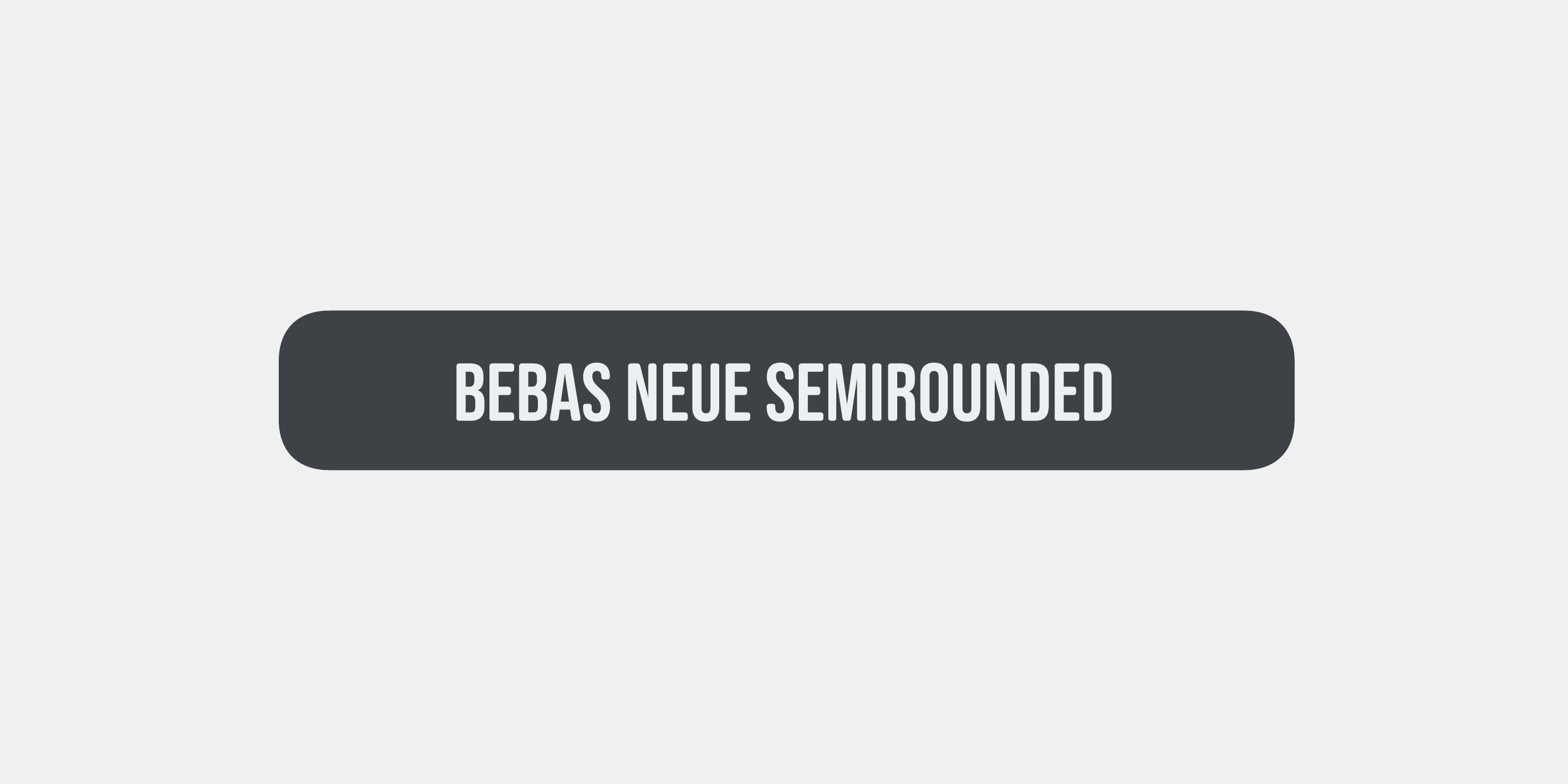
Bebas Neue Semi Rounded Font is perfect for various applications including modern brand logos, contemporary web headers, stylish product packaging, trendy social media graphics, sleek mobile app interfaces, dynamic poster designs, fashion brand identities, minimalist signage, creative agency branding, and progressive marketing campaigns.
What makes Bebas Neue Semi Rounded Font so exciting is its perfect evolution of the classic Bebas design with softened edges that create approachable boldness without sacrificing visual impact. This contemporary typeface features strong, condensed letterforms with gentle rounded corners and refined proportions that bridge the gap between aggressive display fonts and friendly, accessible design. The font's balanced character and modern aesthetic make it ideal for brands that want to convey confidence, innovation, and approachability to audiences who appreciate contemporary design with a human touch.
Bebas Neue Semi Rounded Font family includes multiple weights and styles: Thin, Light, Regular, Medium, Bold, Black, Condensed, Extended, and smoothly crafted Italic variants. Each family member maintains the font's signature contemporary boldness while offering different levels of visual impact and stylistic flexibility for diverse modern design applications.
The Bebas Neue Semi Rounded Font Free Download provides designers with access to a refined typeface that excels in contemporary branding and digital design markets. Whether you're creating modern startup identities, designing cutting-edge marketing materials, or developing user-friendly digital interfaces, this font delivers the perfect aesthetic balance needed to attract design-conscious audiences. Its contemporary styling and approachable essence make it particularly effective for tech companies, creative agencies, and forward-thinking lifestyle brands.
Typography specialists will appreciate the masterful refinement and contemporary craftsmanship in Bebas Neue Semi Rounded Font's construction. The font features precisely engineered letterforms with softened edges, optimized kerning for modern applications, and carefully balanced proportions that ensure exceptional readability while maintaining its bold character. From mobile app interfaces to large-scale environmental graphics, this typeface maintains its contemporary appeal and approachable sophistication across all design contexts.
For modern web designers, Bebas Neue Semi Rounded Font provides outstanding performance in contemporary digital environments and responsive user interfaces. The font's technical specifications are optimized for modern displays and various screen sizes while preserving the refined, rounded edges that define its approachable character. Its versatility makes it suitable for both static contemporary content and dynamic interactive experiences.
Creative professionals working in technology, design agencies, lifestyle brands, and contemporary marketing will find Bebas Neue Semi Rounded Font to be an essential tool for projects requiring modern visual communication. The font's ability to convey confidence, innovation, and approachability makes it invaluable for brands targeting design-conscious and tech-savvy demographics.
Design agencies specializing in contemporary and tech brands appreciate Bebas Neue Semi Rounded Font's versatility in creating memorable modern identities.